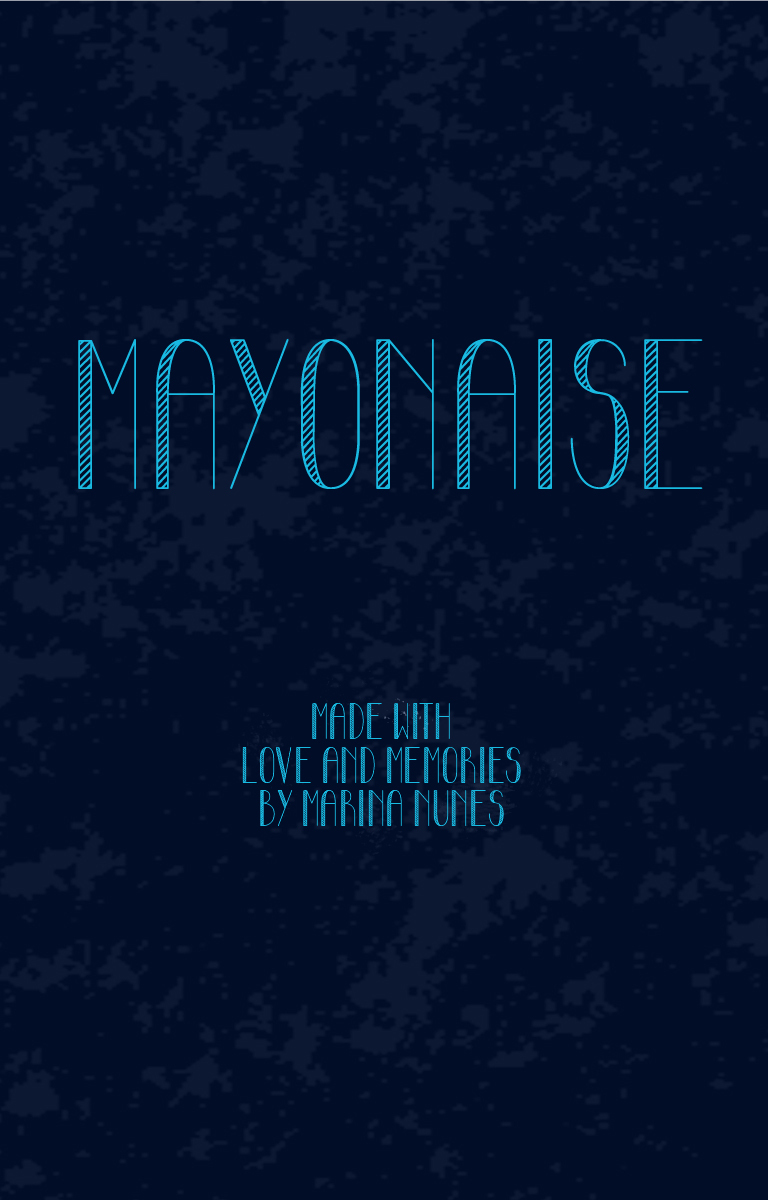
Mayonaise Condensed, a trademark of Marina Nunes, is a free retro display font shaped by lean proportions, theatrical curves, geometric restraint, and hairline strokes running through its tall letterforms. Its narrow hatched shadows resemble fine architectural engraving.
Those striped details can echo line drawings and patterned borders on cocktail packaging, restaurant menus, and fashion editorials, letting the type become part of the illustration rather than a separate label. Event posters and boutique branding draw on the same combination of airy forms and eccentric curves, linking hospitality, fashion, and entertainment through a distinctly period-minded decorative style.
Mayonaise Condensed is a font designed by Marina Nunes in 2012.